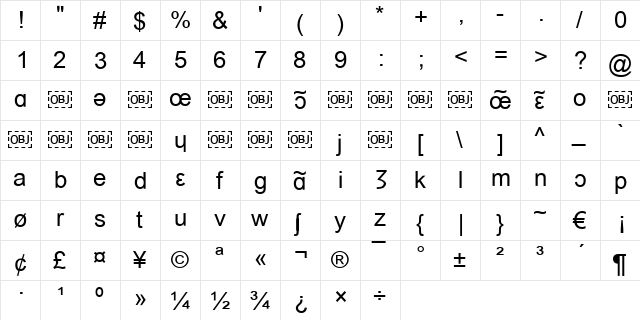
IPA Font Regular
| Designer | David Jalbert |
Design Context for IPA Font Typeface
IPA Font takes a measured approach to typography — its balanced proportions and neutral character make it a reliable workhorse for both digital and print work.